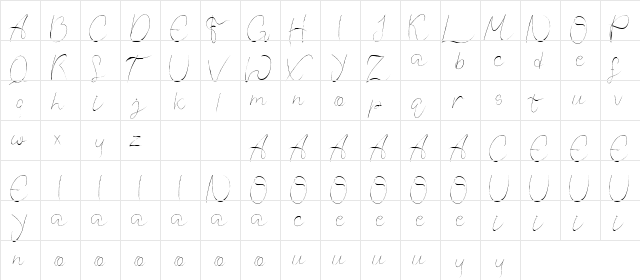
Kandis Marsh Demo Script Regular
Design Context for Kandis Marsh Demo Script Typeface
Kandis Marsh Demo Script flows with the natural rhythm of handwritten lettering, making it ideal for designs that call for warmth and personal expression.
Font Pairing: Combine Kandis Marsh Demo Script with a simple geometric sans for maximum contrast — the tension between flowing curves and clean structure is a classic typographic pairing.
Pro Tip: Use Kandis Marsh Demo Script for short runs of text — names, titles, or taglines. Extended body copy in script faces tires the eye quickly.